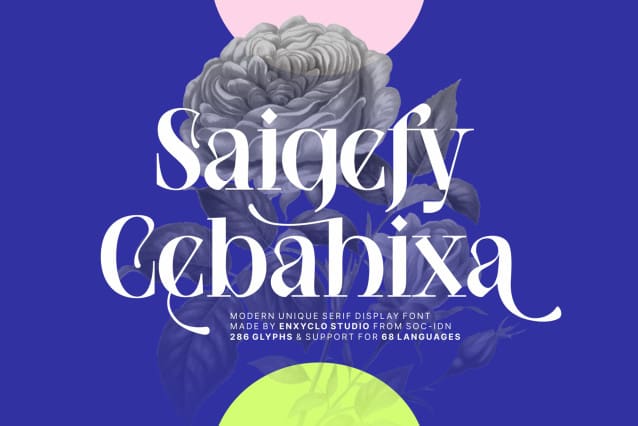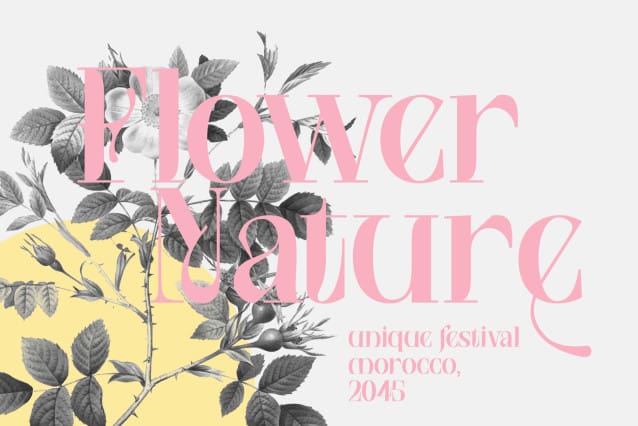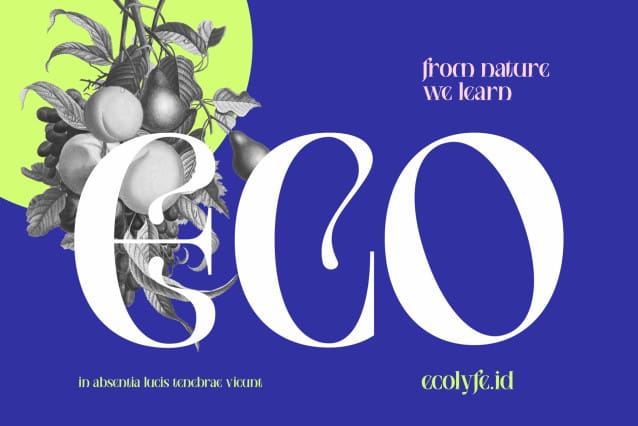
Saigefy Cebahixa Font
SAIGEFY CEBAHIXA FONT is a modern unique serif display font. Masterfully designed to become a true favorite, this font has the potential to bring each of your creative ideas to the highest level! It was purposely crafted to be used in large point sizes, although it doesn’t lose its magic in small point sizes. Saigefy Cebahixa is perfect for wedding, headline, billboard, magazines, website, titles, poster, branding, and logos. No matter the topic, this font will be an incredible asset to your fonts’ library, as it has the potential to elevate any creation. With this beautiful font, absolutely you can make your project stand out from the rest.